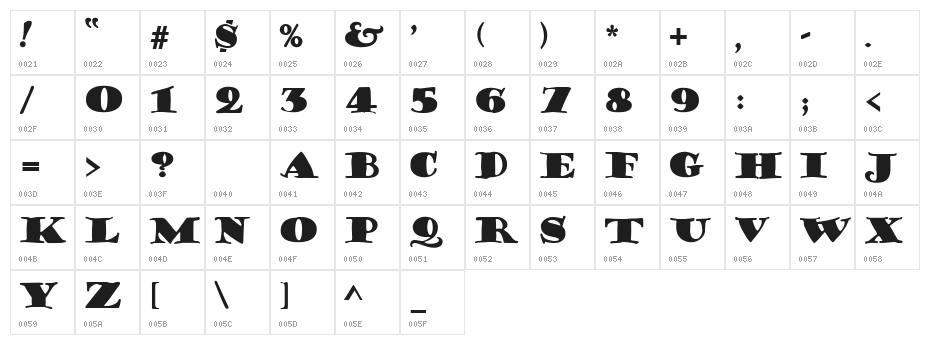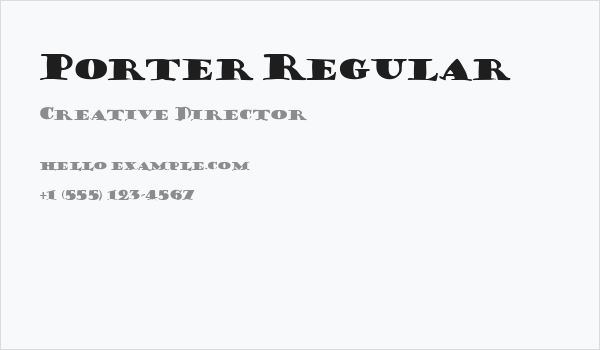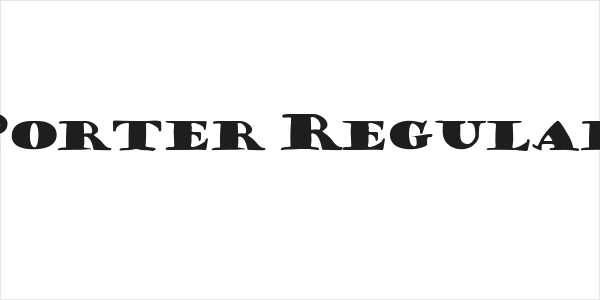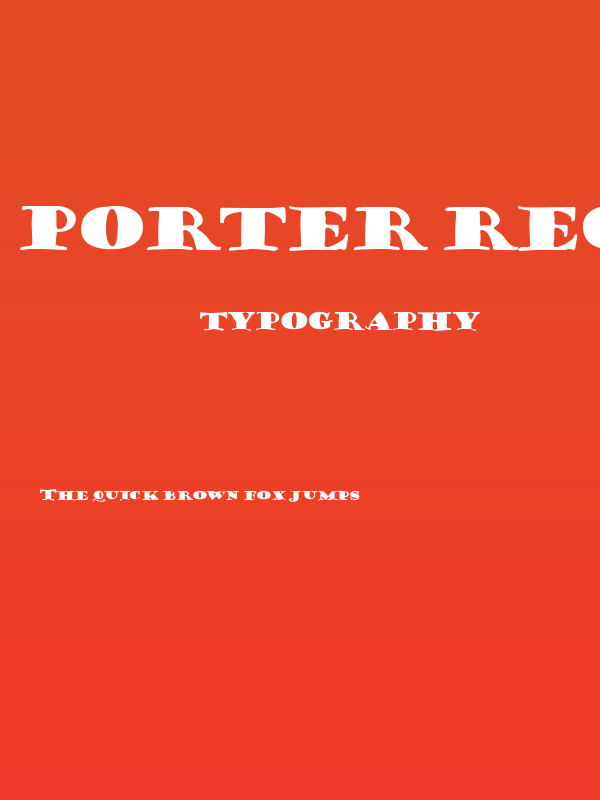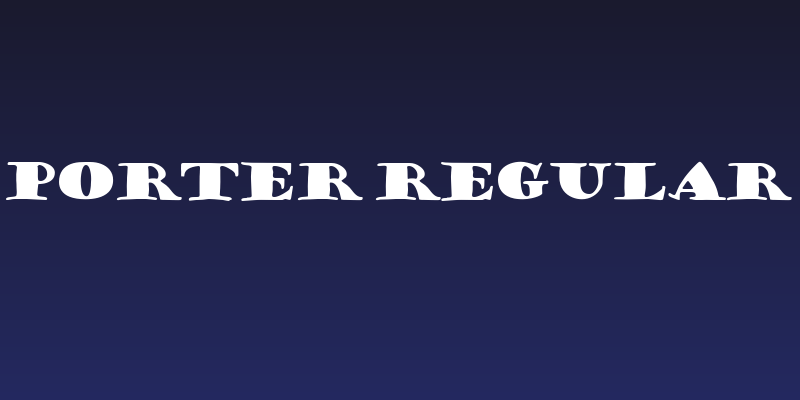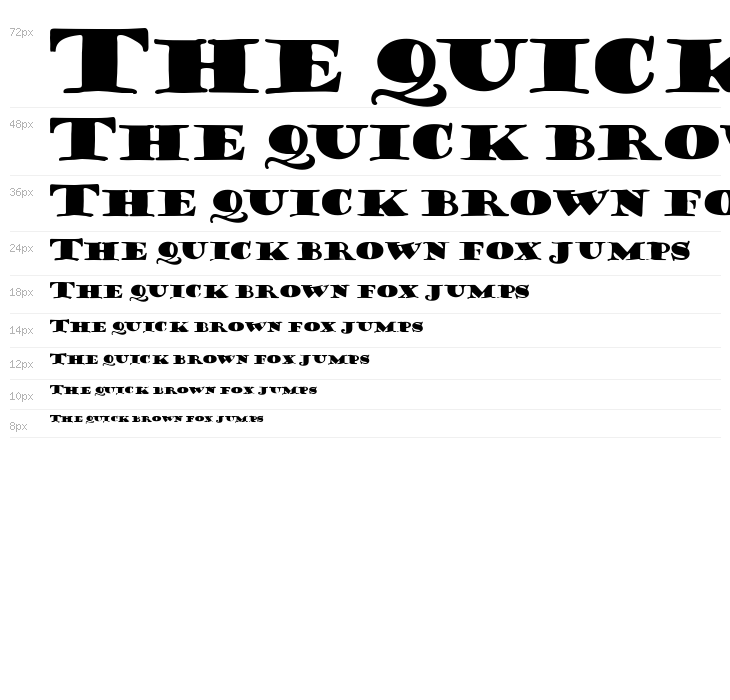
Porter Regular Font
Porter Regular Description
This font features a bold and striking design with strong, thick strokes and high contrast between thick and thin lines. The serifs are prominent and angular, giving it a classic yet powerful appearance. The uppercase letters are particularly wide and commanding, while the lowercase letters maintain a consistent style with slightly less width. Numbers and special characters follow the same bold and impactful design, making them stand out effectively. The overall style is reminiscent of traditional serif fonts but with a modern twist, making it suitable for attention-grabbing headlines and titles.
| Overall Style | Classic |
| Proposed Projects | Ideal for use in headlines, posters, branding materials, and any project requiring a strong, impactful typeface. |